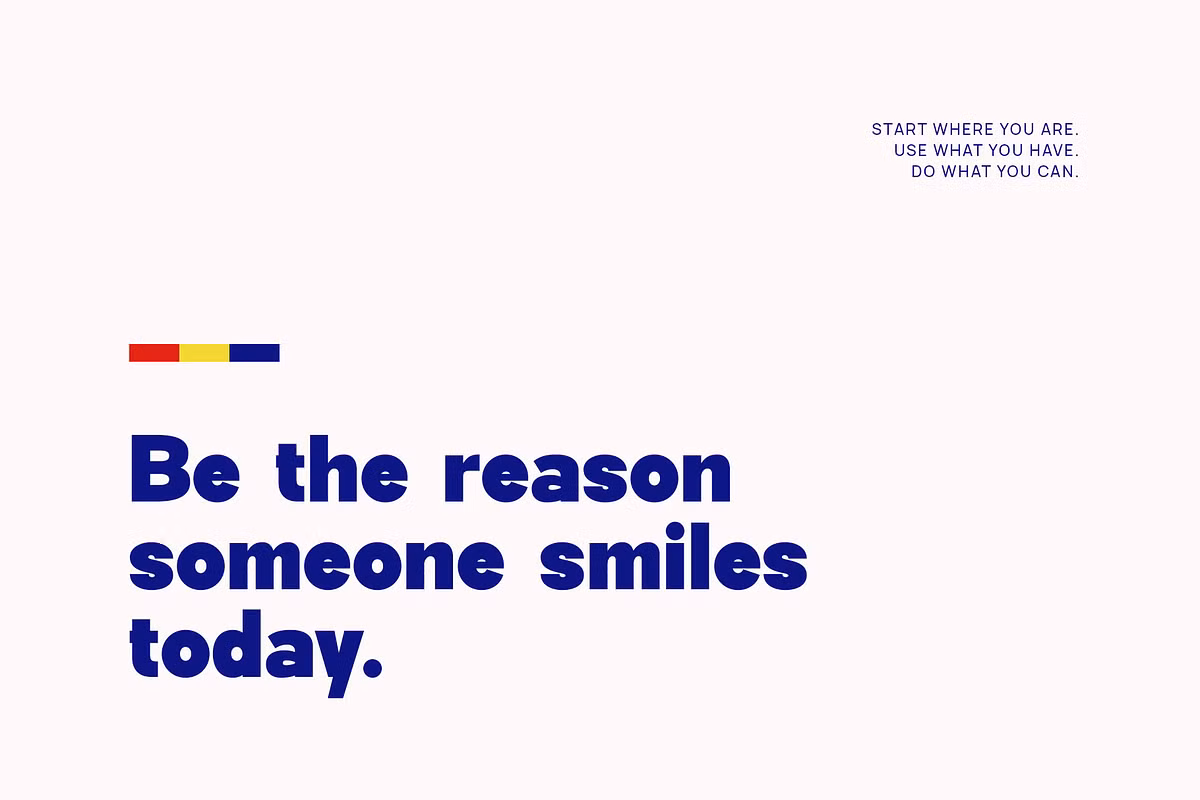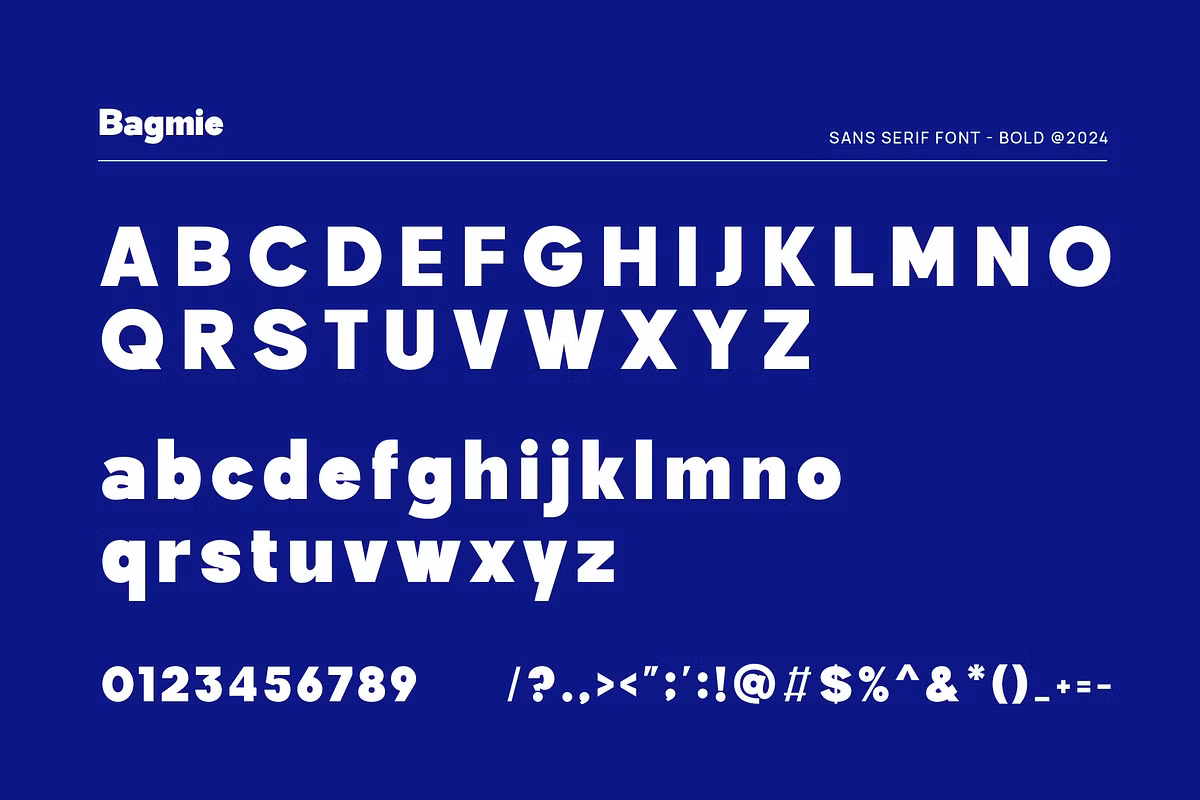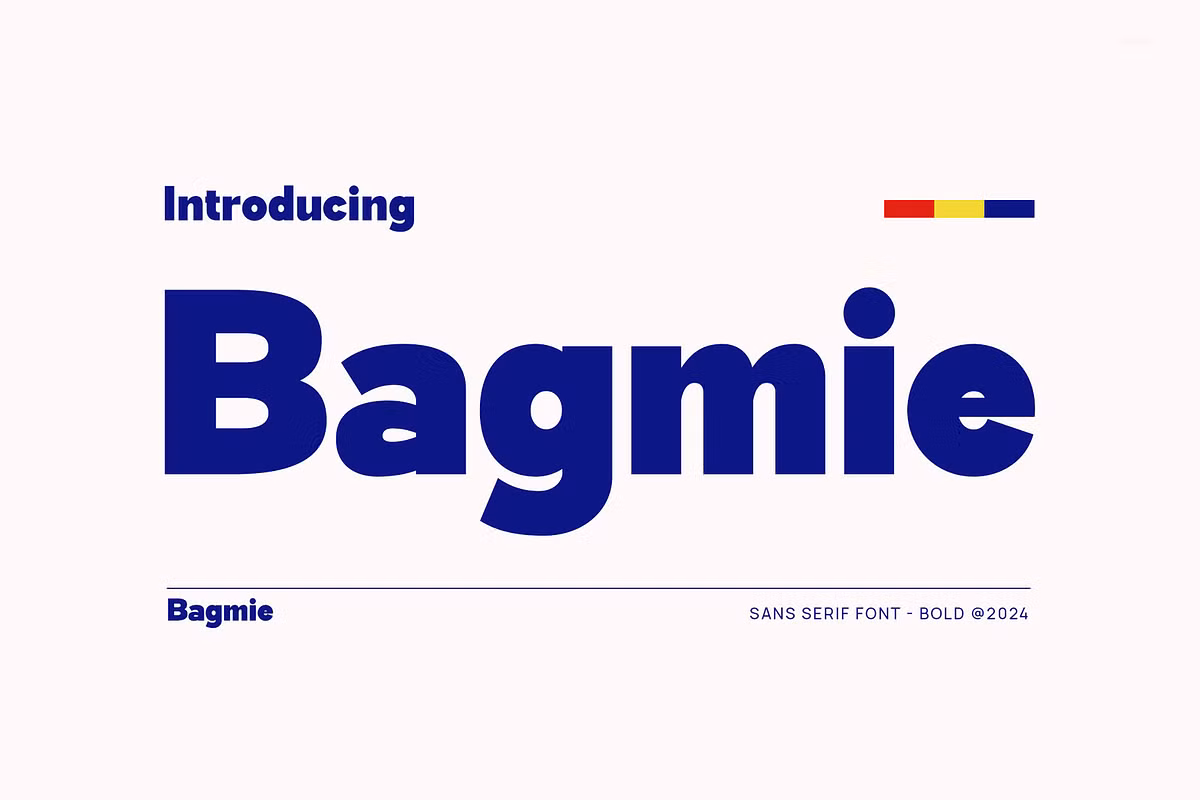
Bagmie Font
Bagmie Type: Modern Sans Serif Font. Welcome new Bagmie the modern sans serif font with elegant style suitable for branding logos invitation magazines product packaging and more.
Bagmie Sans Serif Font